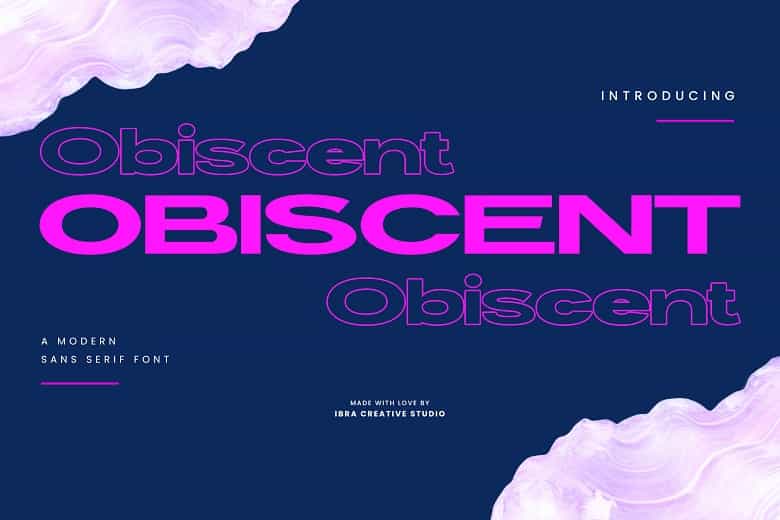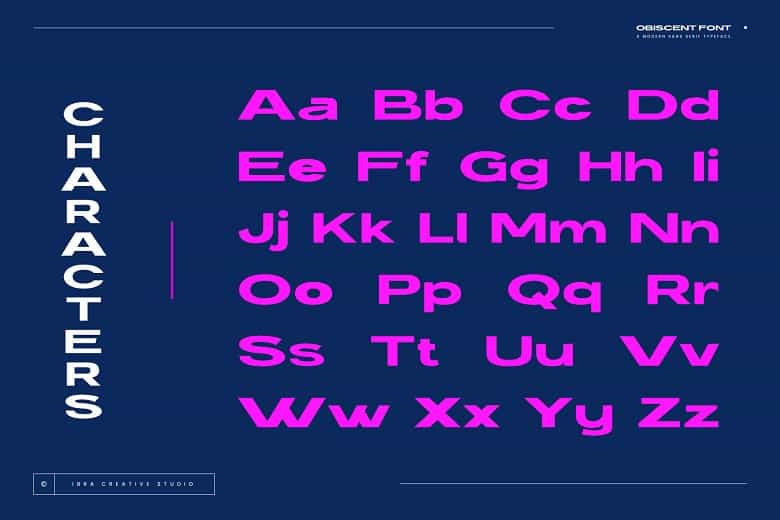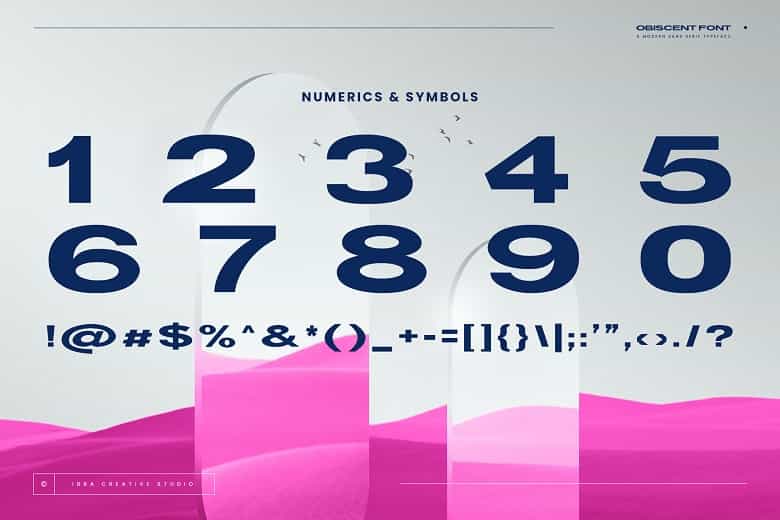
Obiscent is a new modern sans-serif font, represents the concept of the contemporary design with its minimalistic and elegant appearance. Its neat lines and equal measurements give it a classy look thus making it suitable for use in different rooms in the house. The font has a clean and sophisticated design without compromising the legibility on different platforms and items.